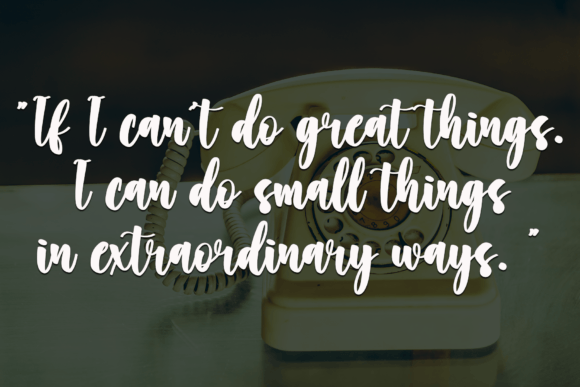
Discover the Charm of Calling Font: Elevate Your Designs with a Versatile Handwritten Style
Are you on the hunt for a font that can effortlessly bridge the gap between formal and informal designs? Look no further than the Calling Font! This delightful handwritten font is bursting with personality and versatility, making it the perfect addition to your typography arsenal. Whether you’re a designer, crafter, or DIY enthusiast, Calling Font is sure to become an instant favorite.
The Allure of Handwritten Fonts
Handwritten fonts have a unique ability to add a touch of warmth and personality to any design. They evoke a sense of human connection and can instantly elevate a project from ordinary to extraordinary. Calling Font takes this concept to the next level with its playful, yet elegant style. The font’s carefully crafted letters are designed to mimic the fluidity of handwritten script, giving your designs a distinctly personal feel.
What Makes Calling Font So Special?
So, what sets Calling Font apart from other fonts in its class? Here are just a few reasons why this font is sure to become a staple in your design library:
• Versatility: Calling Font is incredibly versatile, making it suitable for a wide range of design applications. Whether you’re working on a formal invitation, a playful greeting card, or a bold branding project, this font adapts seamlessly to any style or tone.
• Elegance: Despite its playful nature, Calling Font exudes a sense of elegance and sophistication. Its refined letterforms and balanced spacing make it perfect for designs that require a touch of refinement.
• Readability: One of the most important aspects of any font is readability, and Calling Font delivers. Its clear, flowing script makes it easy to read, even at smaller sizes.
Endless Design Possibilities with Calling Font
With Calling Font, the design possibilities are endless! Here are a few ideas to get you started:
• Wedding Invitations: Add a touch of romance and whimsy to your wedding invitations with Calling Font. Its elegant style makes it perfect for formal wedding designs, while its playful nature is ideal for more casual, rustic weddings.
• Branding and Packaging: Calling Font is an excellent choice for branding and packaging projects. Its unique style can help your brand stand out and leave a lasting impression on customers.
• Stationery and Cards: From greeting cards to stationery sets, Calling Font is the perfect choice for adding a personal touch to your paper crafts.
Tips for Getting the Most Out of Calling Font
To truly make the most of Calling Font, here are a few tips to keep in mind:
• Experiment with Colors: Calling Font looks stunning in a variety of colors. Don’t be afraid to experiment with different hues and combinations to find the perfect match for your design.
• Play with Pairings: Calling Font pairs beautifully with a range of other fonts. Try combining it with bold sans-serifs or elegant serifs to create visually interesting designs.
• Don’t Forget Texture: Adding texture to your designs can help take them to the next level. Consider incorporating subtle patterns or backgrounds to give your Calling Font designs added depth and interest.
In conclusion, Calling Font is a must-have for any designer or crafter looking to add a touch of personality and whimsy to their designs. Its versatility, elegance, and readability make it the perfect choice for a wide range of projects. Whether you’re working on a formal or informal design, Calling Font is sure to become your go-to font. So why wait? Add it to your font library today and discover the endless design possibilities it has to offer!
Calling Font is more than just a font – it’s a tool for creative expression. With its unique style and versatility, it’s the perfect choice for anyone looking to elevate their designs and add a touch of personality to their projects. So go ahead, get creative, and see what amazing designs you can create with Calling Font!
Introducing Calling Font: The Perfect Choice for Invitations and Designs with a Lively Twist
Are you a designer or crafter looking for a font that can add a personal touch to your creations? Look no further than Calling Font, a bold handwritten font that features thick, expressive strokes and a casual, friendly style. With its unique characters and lively feel, Calling Font is perfect for invitations, quotes, or any design that needs a bit of personality.
The Characteristics of Calling Font
Calling Font is a one-of-a-kind font that boasts a range of distinctive characteristics. Its thick, expressive strokes give it a bold and eye-catching appearance, while its casual, friendly style makes it perfect for designs that need a relaxed, informal feel. The font’s unique characters are carefully crafted to give it a personal touch, making it ideal for designs that require a bit of personality.
Calling Font is a versatile and eye-catching font that’s perfect for designers and crafters who want to add a bit of personality to their creations. With its bold, expressive strokes and casual, friendly style, it’s ideal for invitations, quotes, or any design that needs a lively, informal feel. Whether you’re a seasoned designer or a crafty DIY enthusiast, Calling Font is sure to become a favorite in your font collection.